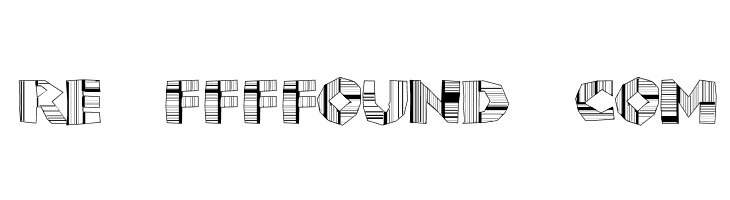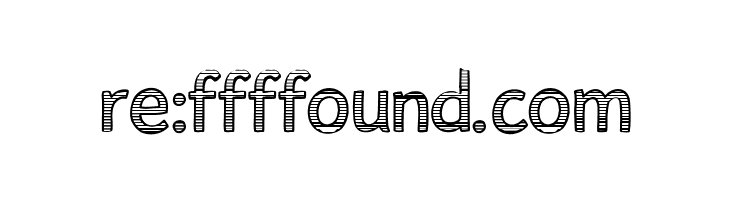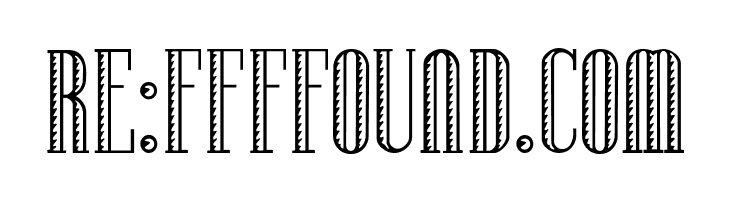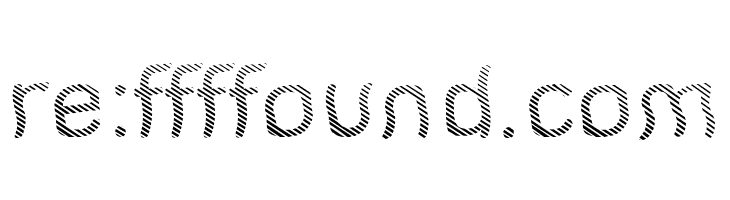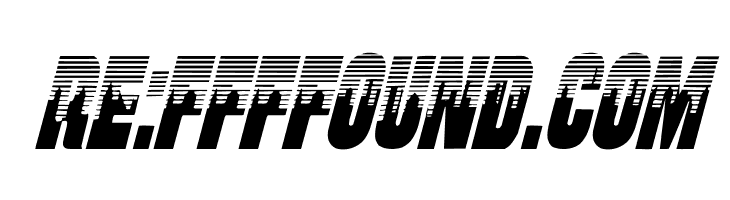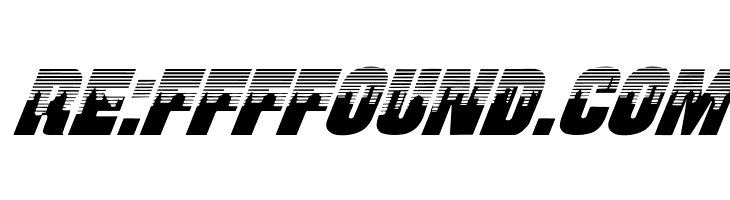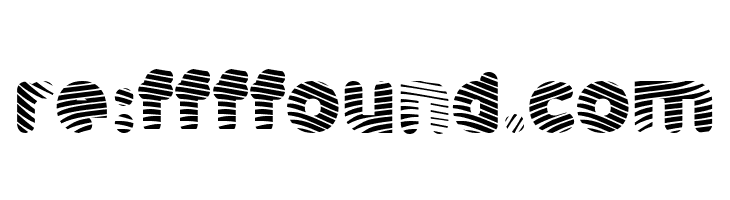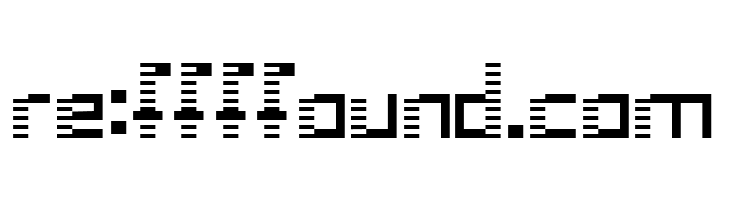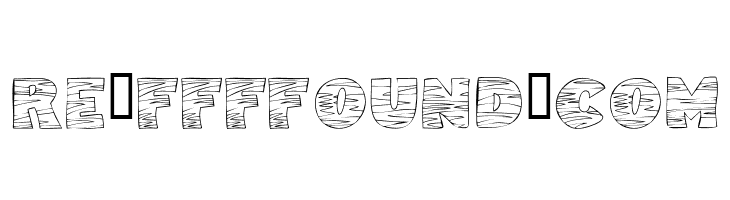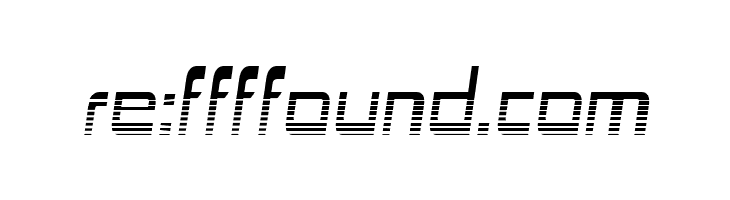
A decorative, striped font with a dynamic and textured appearance.
A decorative font with striped patterns, offering a playful and dynamic look.
A decorative, hand-lettered font with tall, narrow characters and a striped pattern.
A dynamic, striped font with a modern, energetic style.
A bold, italic font with a dynamic, striped design.
A bold, striped font with a playful and dynamic design.
A bold, striped font with a playful and adventurous style.
A futuristic font with a striped, geometric design ideal for tech and creative projects.
A bold, modern font with a diagonal striped pattern and geometric design.
A sketched, zebra-striped font with a dynamic and artistic style.
A playful, hand-drawn font with a striped pattern and casual style.
A bold, striped font with a modern, industrial look.
A bold, geometric font with a striped, industrial design.
A bold, decorative font with a three-dimensional beveled effect and striped pattern.
A futuristic, striped font with a geometric and digital aesthetic.
A modern, italic font with a striped, futuristic design and high contrast.
A whimsical, hand-drawn font with decorative stripes and curly lowercase letters.
A bold, modern font with a unique gradient stripe effect.
A futuristic, italicized font with a gradient stripe effect, ideal for modern and dynamic designs.
A dynamic, italicized font with a futuristic gradient effect and striped pattern.